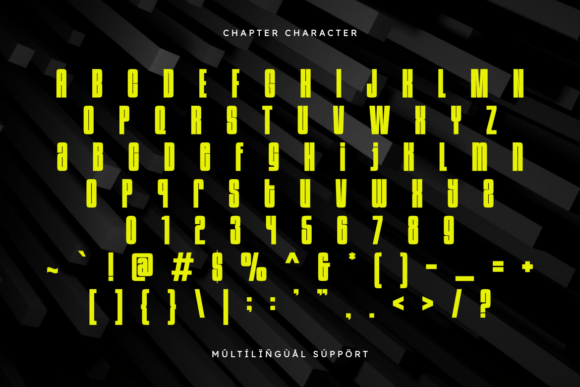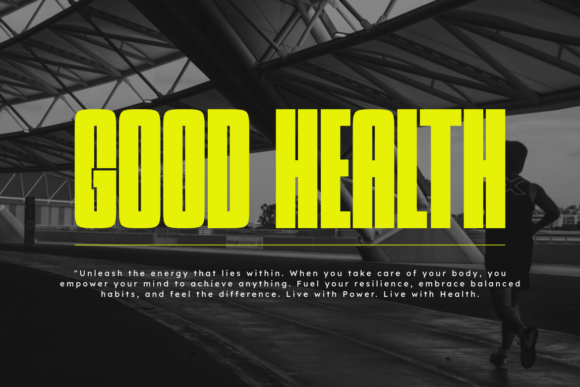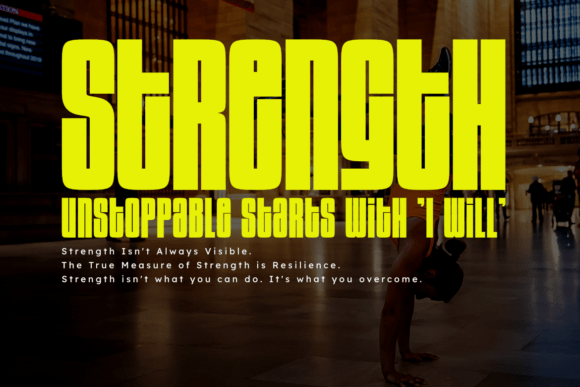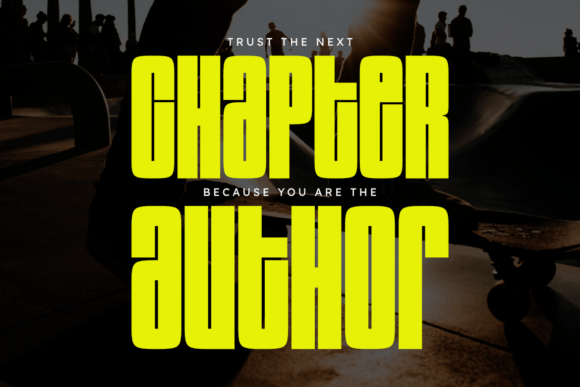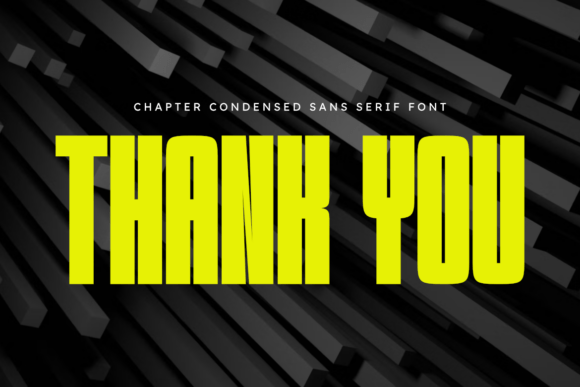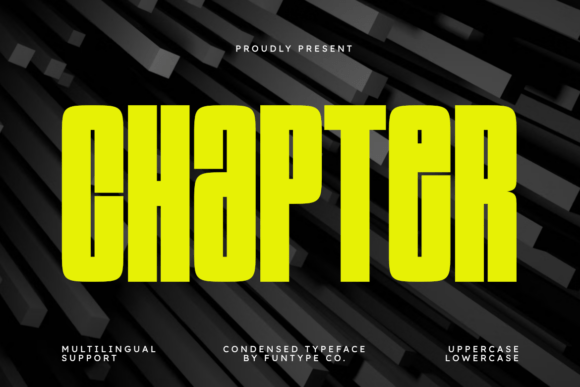
Introducing Chapter Font: The Ultimate Choice for Bold and Modern Designs
In the world of typography, a font can make or break a design. When it comes to creating a strong visual impact, Chapter font is the perfect choice. This bold and condensed sans-serif font is designed to grab attention and convey confidence, making it ideal for a wide range of applications, from headlines and branding to posters, sports designs, editorial layouts, and advertising projects.
What Makes Chapter Font Stand Out?
Chapter font boasts tall proportions, sharp lines, and a modern style that sets it apart from other fonts. Its condensed design allows for more text to be fitted into a smaller space, making it perfect for titles, headings, and short paragraphs. The font’s boldness ensures that your message gets across quickly and effectively, while its sans-serif design provides a clean and minimalist look.
Key Features of Chapter Font
- Bold and Condensed Design: Chapter font is specifically designed to make a strong visual impact. Its boldness and condensed design make it perfect for headlines, titles, and short paragraphs.
- Tall Proportions: The font’s tall proportions ensure that your text stands out, even at smaller sizes.
- Sharp Lines: The sharp lines and clean design of Chapter font give it a modern and edgy look.
- Modern Style: The font’s modern style makes it perfect for a wide range of applications, from digital to print.
- High Readability: Despite its boldness, Chapter font remains highly readable, even at smaller sizes.
Use Cases for Chapter Font
Chapter font is versatile and can be used in a variety of applications, including:
- Headlines and Titles: Use Chapter font to create bold and attention-grabbing headlines and titles.
- Branding and Logo Design: The font’s bold and modern style makes it perfect for branding and logo design.
- Posters and Flyers: Chapter font is ideal for posters and flyers that require a strong visual impact.
- Sports Designs: The font’s bold and edgy design makes it perfect for sports-related designs, such as jerseys, logos, and promotional materials.
- Editorial Layouts: Use Chapter font to create bold and modern editorial layouts, such as magazine covers and article titles.
- Advertising Projects: The font’s high readability and bold design make it perfect for advertising projects, such as billboards and print ads.
Why Choose Chapter Font?
With so many fonts available, why choose Chapter font? Here are just a few reasons:
- Unique Design: Chapter font has a unique design that sets it apart from other fonts.
- High Versatility: The font can be used in a wide range of applications, from digital to print.
- Easy to Read: Despite its boldness, Chapter font remains highly readable, even at smaller sizes.
- Modern Aesthetic: The font’s modern style ensures that your designs look contemporary and fresh.
In conclusion, Chapter font is the perfect choice for designers and crafters looking to create bold and modern designs. With its unique design, high versatility, and ease of readability, Chapter font is sure to make a strong visual impact in any application. Whether you’re working on a headline, branding project, poster, or advertising campaign, Chapter font is the ultimate choice for confidence and readability.